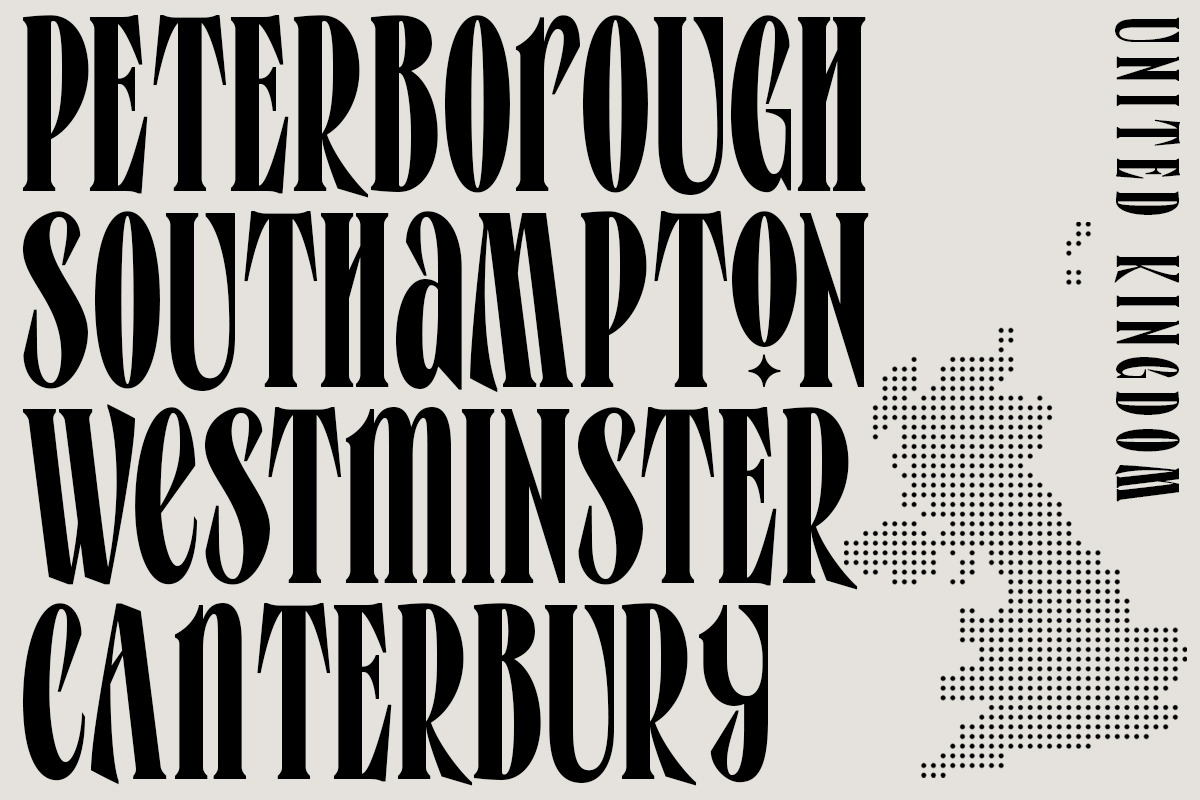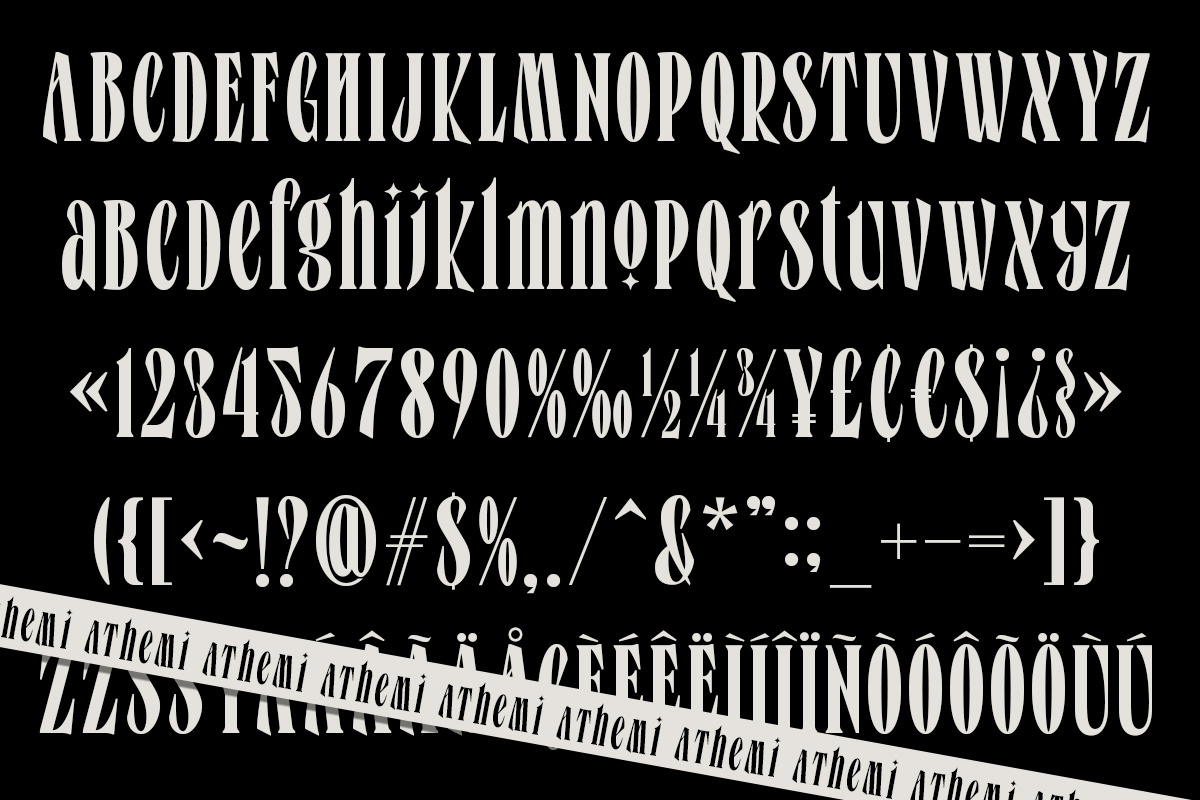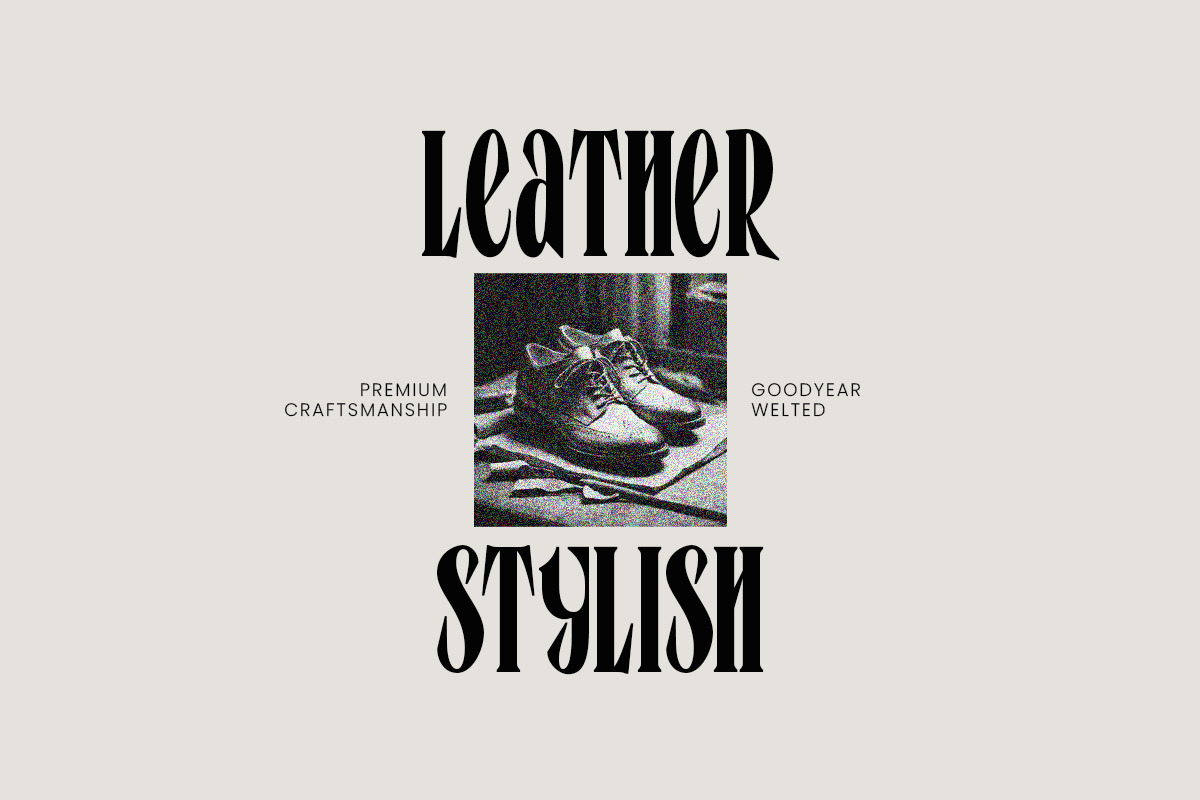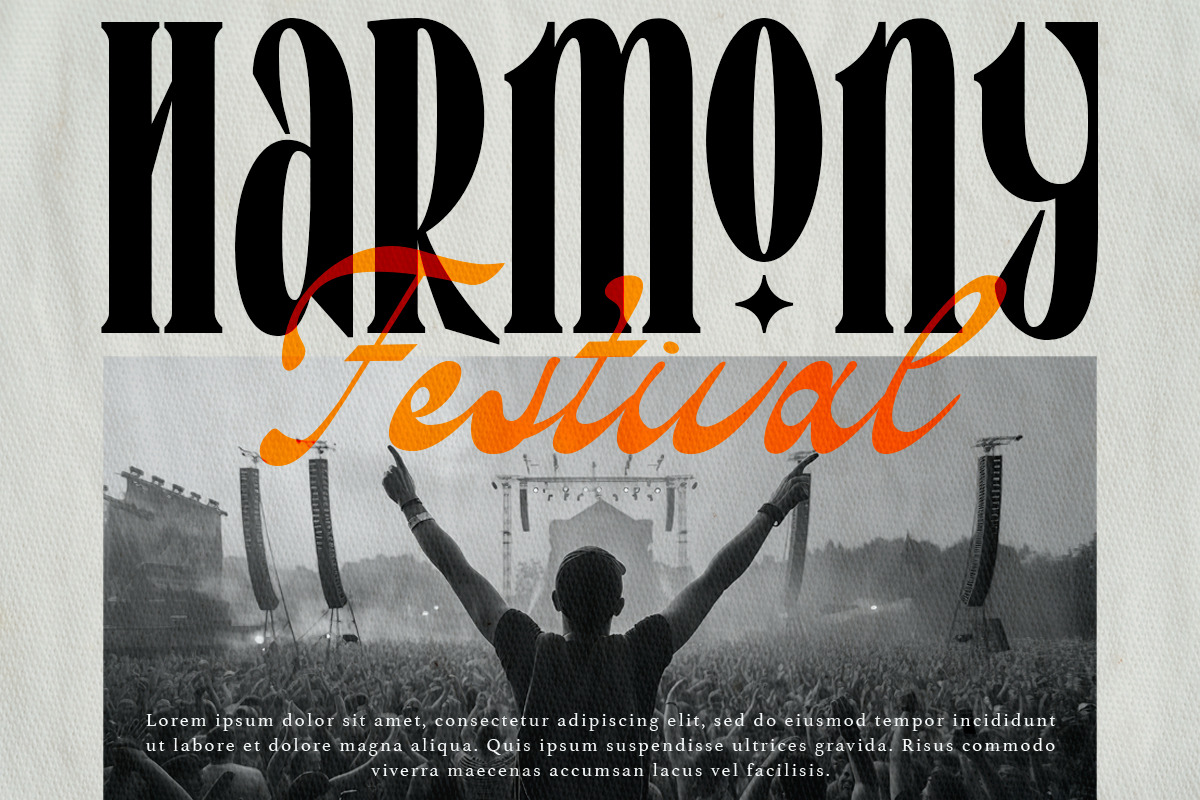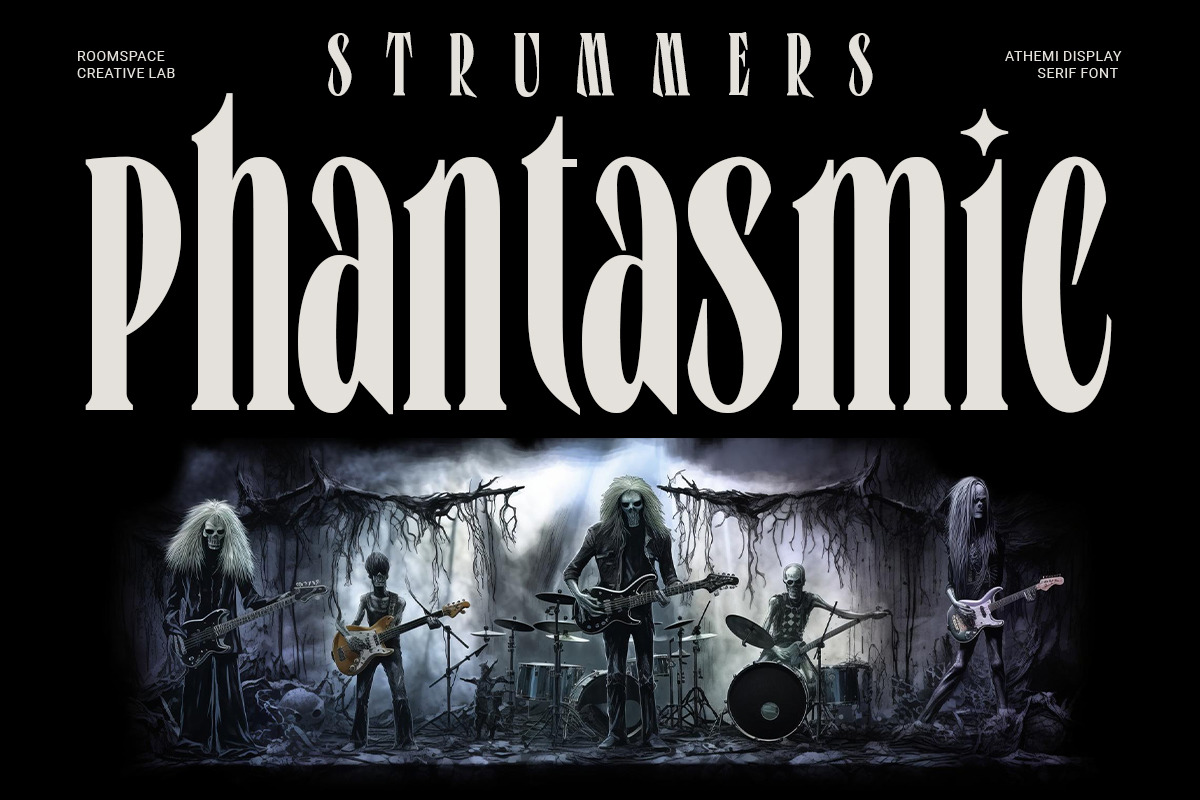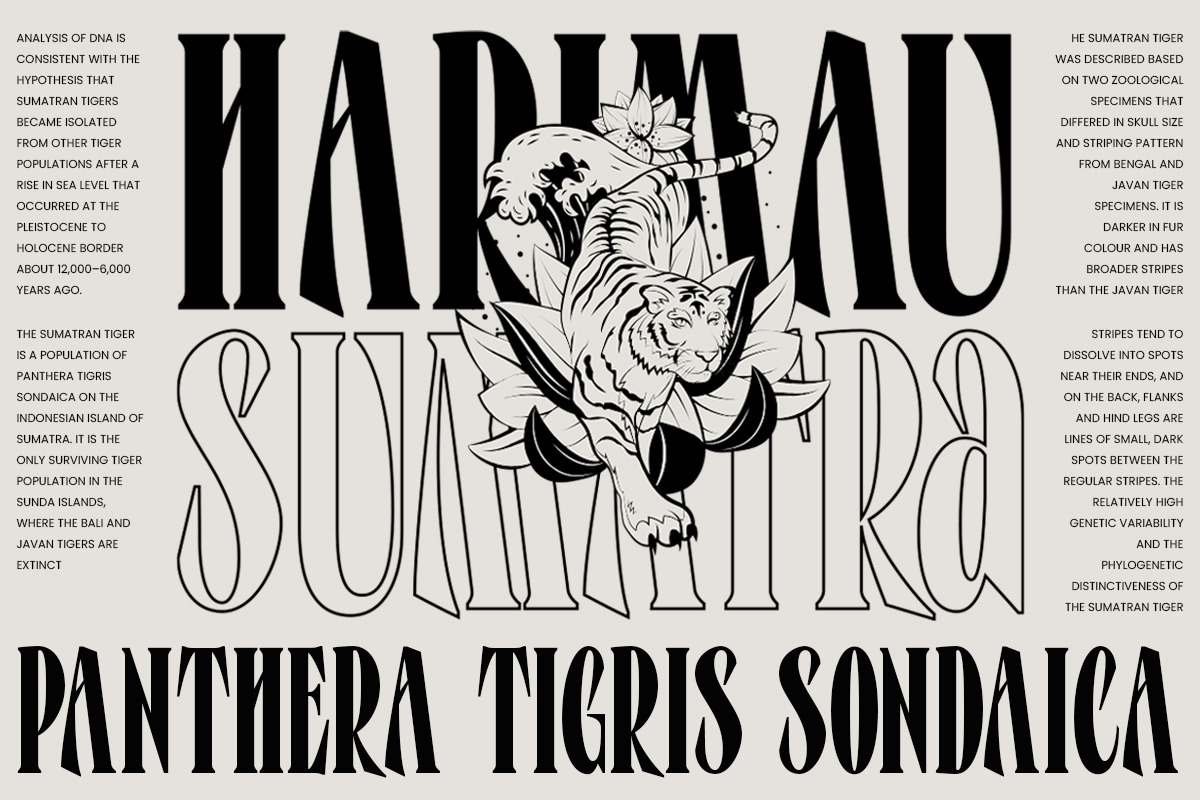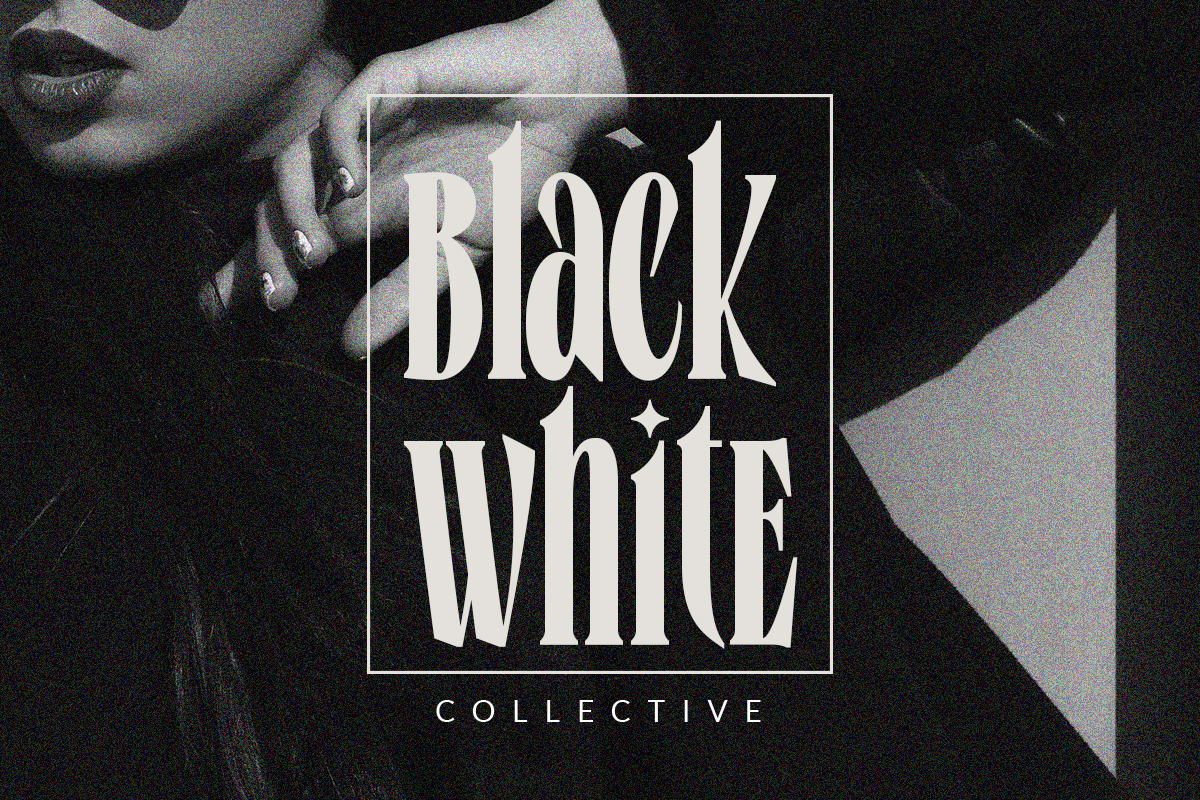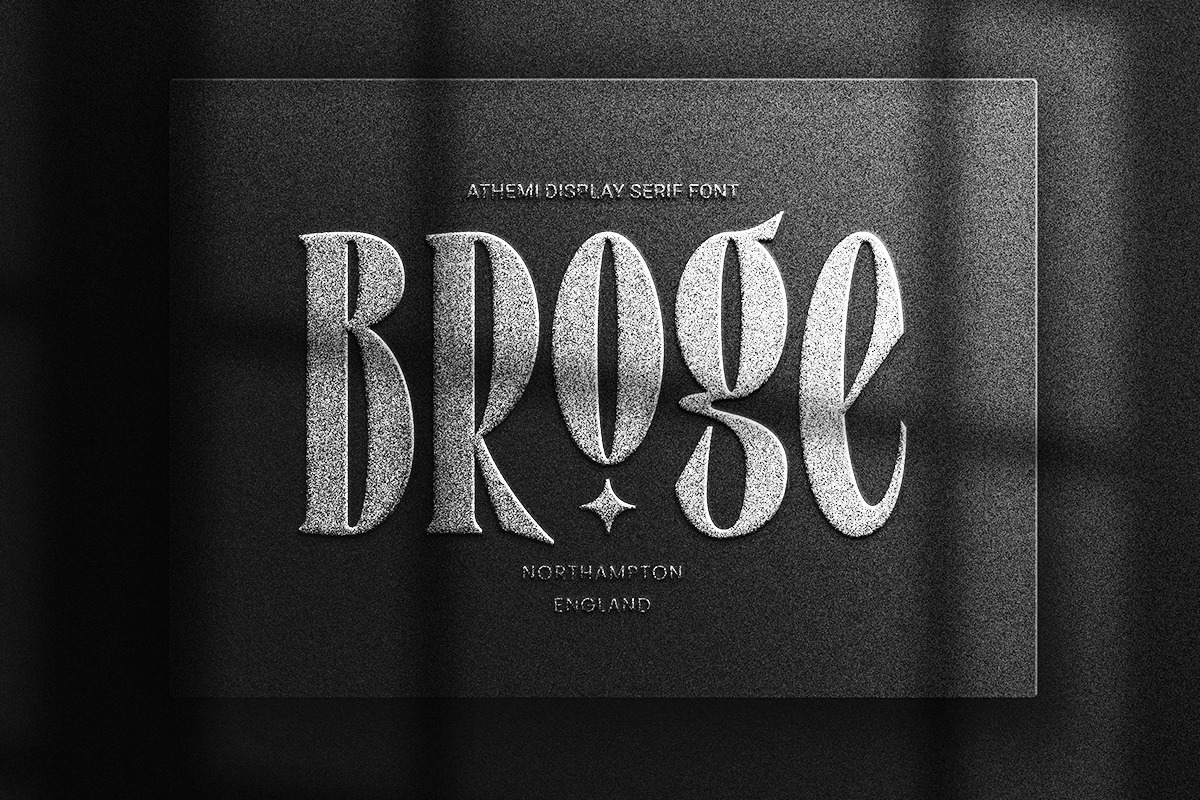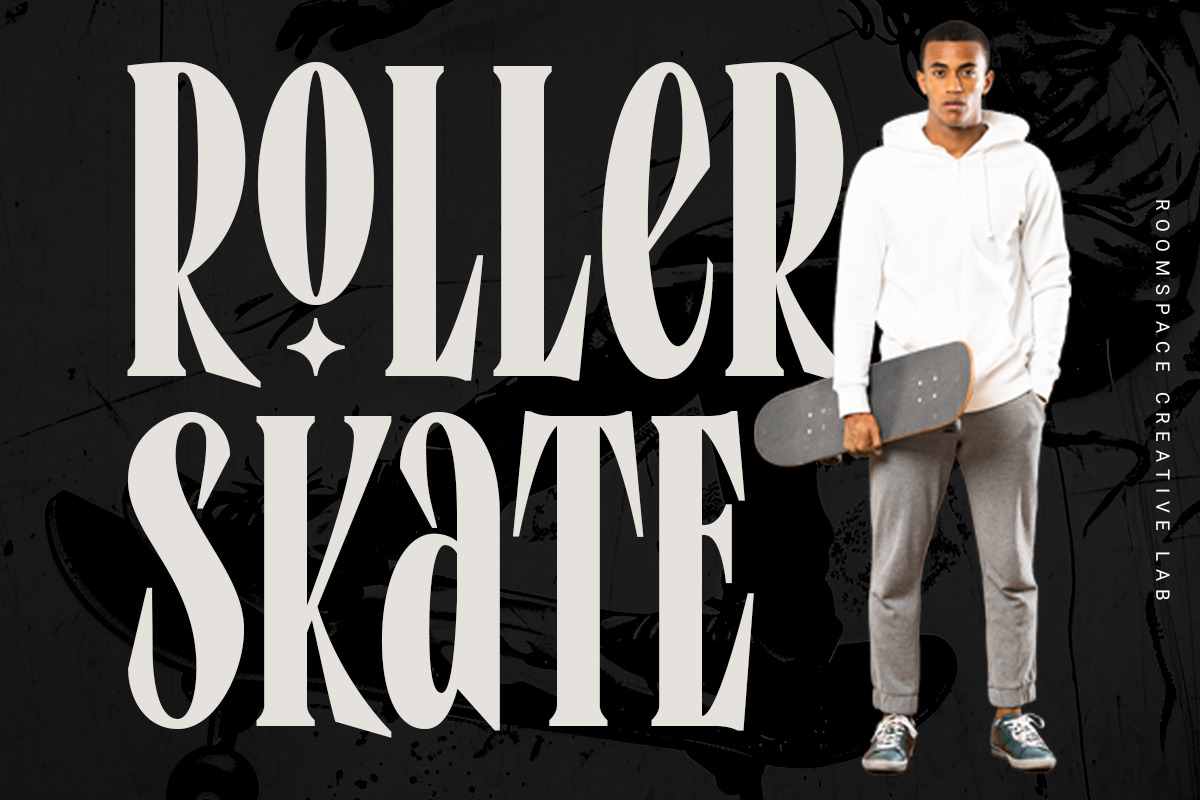
Athemi - Elegant Condensed Serif
Arthemi a sleek serif condensed font that harmonizes classic sophistication with a modern edge. Each meticulously crafted letter exudes its own unique flair, boasting sharp, pointed terminals for added elegance. Athemi condensed design strikes the perfect balance between compactness and readability.
With its seamless blend of traditional serif charm and contemporary appeal, Athemi is an ideal choice for projects seeking sophistication while maintaining a modern flair. Whether for graphic design, print materials, or digital interfaces, this font effortlessly bridges the gap between classic refinement and current trends, ensuring your message stands out with impressive clarity and style